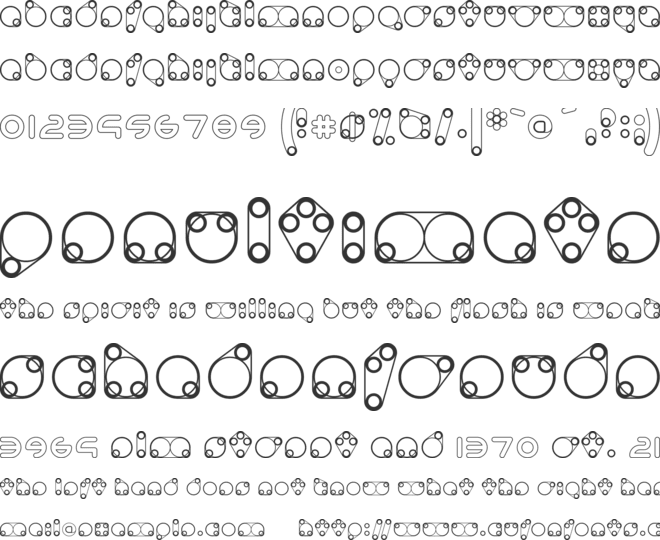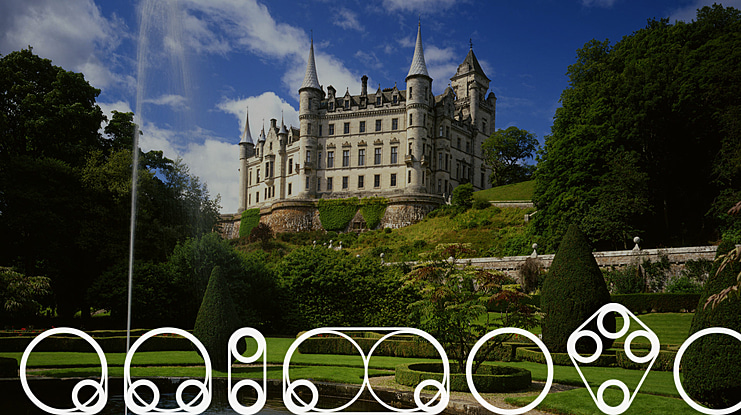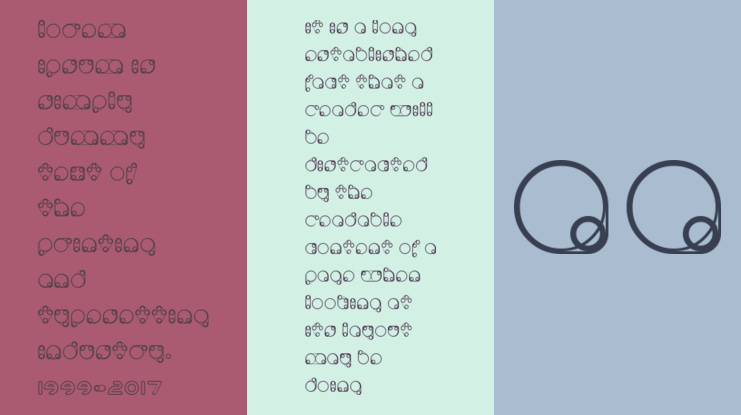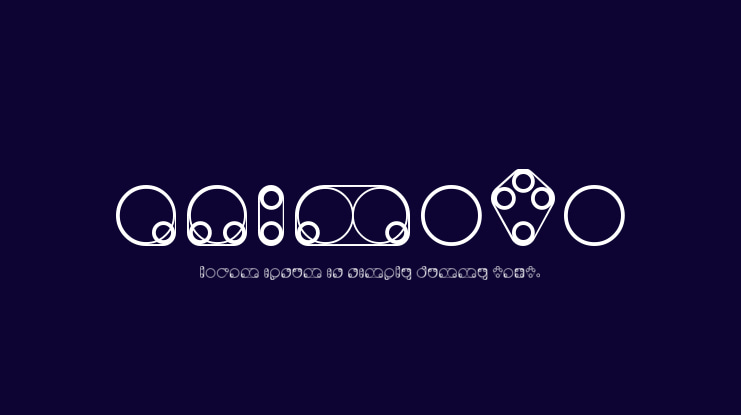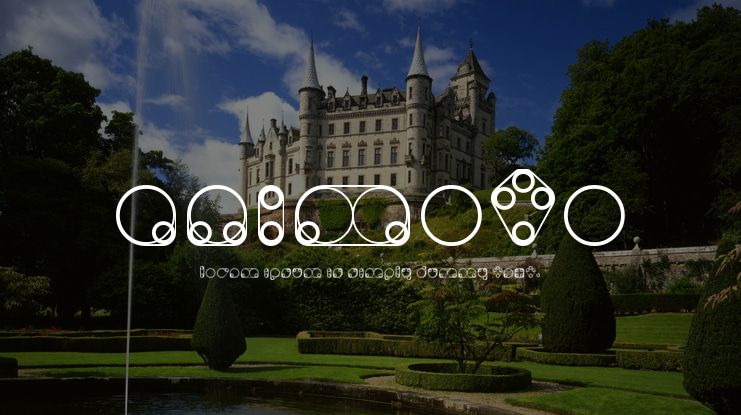
Perfect for occasional headlines, when everyone knows what's written there, without actually reading!
These funky shapes in fact had cost me a hell of a time to be drafted with architectural precision, so enjoy and dive into cool!